Canva Font Finder: Identify Fonts From Any Design
Find fonts from Canva designs instantly with a Canva font finder that detects typography from uploaded images in seconds.
A Canva font finder helps you identify fonts used in Canva graphics by uploading an image or screenshot. Instead of guessing typefaces manually, tools like Find Font AI analyze the lettering visually and suggest matching fonts within seconds.
There is a strangely specific kind of frustration that happens when you see the perfect font inside a Canva design and suddenly realize you have no idea what it is.
Not close.
Not “kind of similar.”
You want the exact font.
Maybe it appeared in a Pinterest pin. Maybe it was hiding inside a YouTube thumbnail, an Instagram carousel, or a product mockup someone casually uploaded at 2 AM. You zoom in. You squint. You start typing random font names into search bars like a detective holding blurry fingerprints under a desk lamp.
At some point, it stops feeling creative and starts feeling ridiculous.
That is where a Canva font finder changes the entire experience.
Instead of manually hunting typography through endless font libraries, you upload an image and let AI reverse-engineer the design. The shift feels small at first. Then suddenly, hours disappear from your workflow in the best possible way.
And honestly, that is the part nobody talks about enough.
Fonts are emotional shortcuts. They carry tone before words even arrive. A rounded sans-serif feels approachable. Sharp geometric lettering feels expensive. A handwritten script can make a brand feel intimate or chaotic depending on a single curve.
People are not really searching for fonts.
They are searching for the feeling the font created.
What Is a Canva Font Finder?
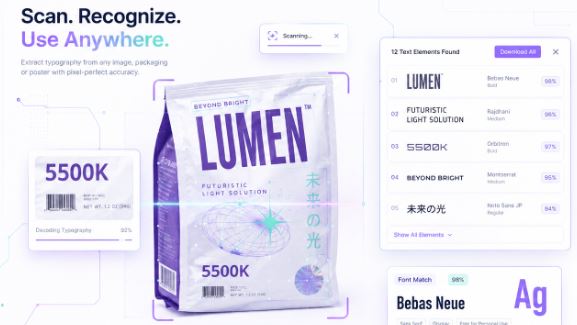
A Canva font finder is a tool that identifies fonts used inside Canva graphics, screenshots, templates, and exported images.
Instead of searching manually through typography libraries, the tool scans letter shapes, spacing, curves, weight distribution, and stylistic details to detect likely matches.
The process is surprisingly simple:
- Upload an image
- AI scans the typography
- The tool suggests matching fonts
That is it.
No technical design knowledge required.
According to Find Font AI, modern font recognition systems can analyze subtle typographic characteristics that most humans overlook entirely, including terminal shapes, x-height balance, and character spacing consistency.
And that matters because Canva users often work fast. They save inspiration quickly. Screenshots pile up. Design references blur together.
The old workflow was messy.
The new one feels almost suspiciously efficient.
Why People Search for Canva Fonts in the First Place
This part gets overlooked constantly.
People assume font identification is only for designers. It is not.
The demand actually comes from a strange mix of creators:
- Small business owners
- Etsy sellers
- YouTubers
- Freelancers
- Social media managers
- Students
- Coaches building personal brands
- Startup founders making pitch decks at midnight
Typography quietly became part of digital identity.
And Canva accelerated that shift because it made design accessible to people who never formally studied branding.
Suddenly, everyone cared about fonts.
Even if they did not know the terminology.
Fonts Influence Trust Faster Than Most People Realize
A font can make a business look polished or improvised within milliseconds.
That sounds dramatic until you compare two identical landing pages with different typography choices.
One feels credible.
The other feels temporary.
Nothing else changed.
Researchers studying visual perception have repeatedly found that typography affects readability, emotional interpretation, and trust formation before users consciously process the actual message.
Which explains why people obsess over “that one Canva font.”
They are trying to recreate a feeling that already worked.
How a Canva Font Finder Actually Works
Most people imagine font recognition tools operate like magic.
The reality is more interesting.
A modern Canva font finder uses machine learning models trained on thousands of typefaces. The AI compares uploaded letterforms against known font structures.
It analyzes:
- Stroke thickness
- Character proportions
- Serif construction
- Curvature
- Letter spacing
- Baseline alignment
- Uppercase and lowercase relationships
Think of it like facial recognition, except for typography.
A lowercase “g” becomes a fingerprint.
The tail of an “R” becomes evidence.
The shape of quotation marks suddenly matters.
Tiny details carry enormous identification power.
The AI Is Looking for Patterns Humans Miss
Humans often identify fonts emotionally.
AI identifies them structurally.
Key Takings
- A Canva font finder helps identify fonts from uploaded images instead of manual searching.
- Typography shapes emotional perception before users even read the content.
- AI font detection analyzes letter structures humans often overlook.
- Manual font searching disrupts creative momentum and wastes time.
- Find Font AI simplifies Canva font detection into a fast visual workflow.
- Consistent typography strengthens branding across social and web content.
- Better font recognition leads to faster, more confident design decisions.